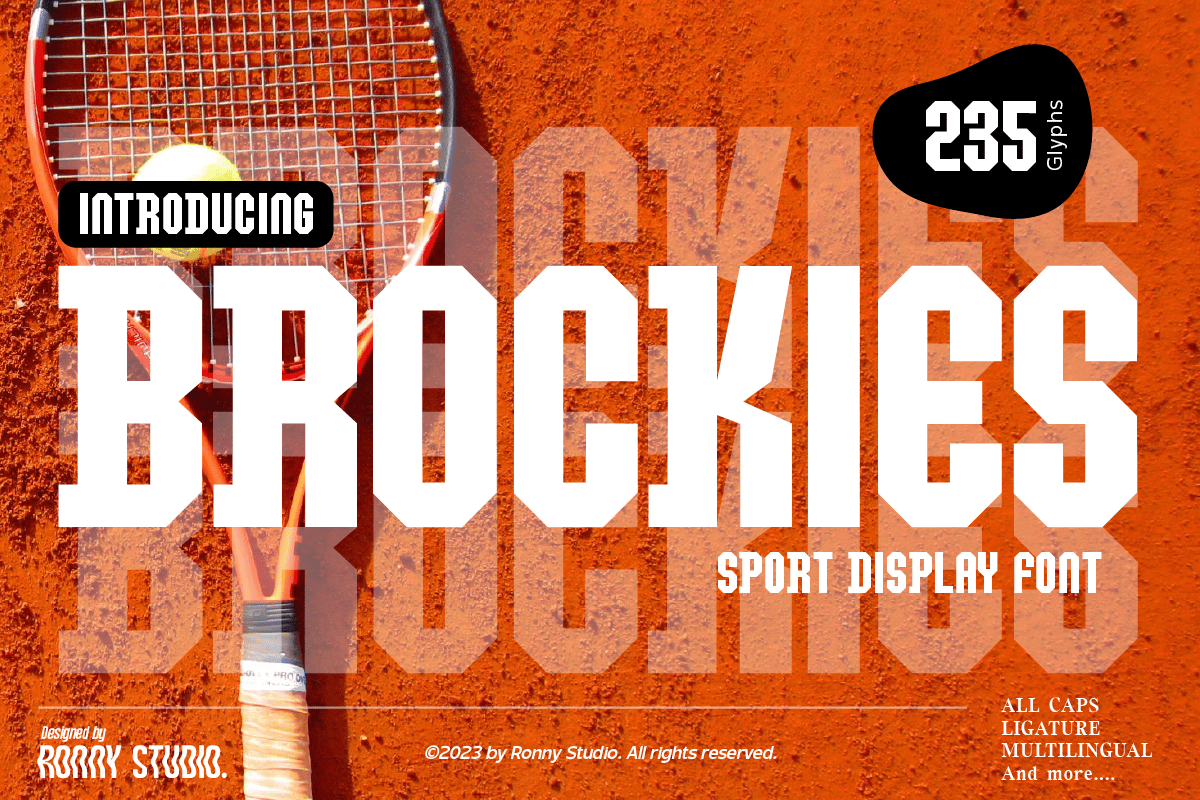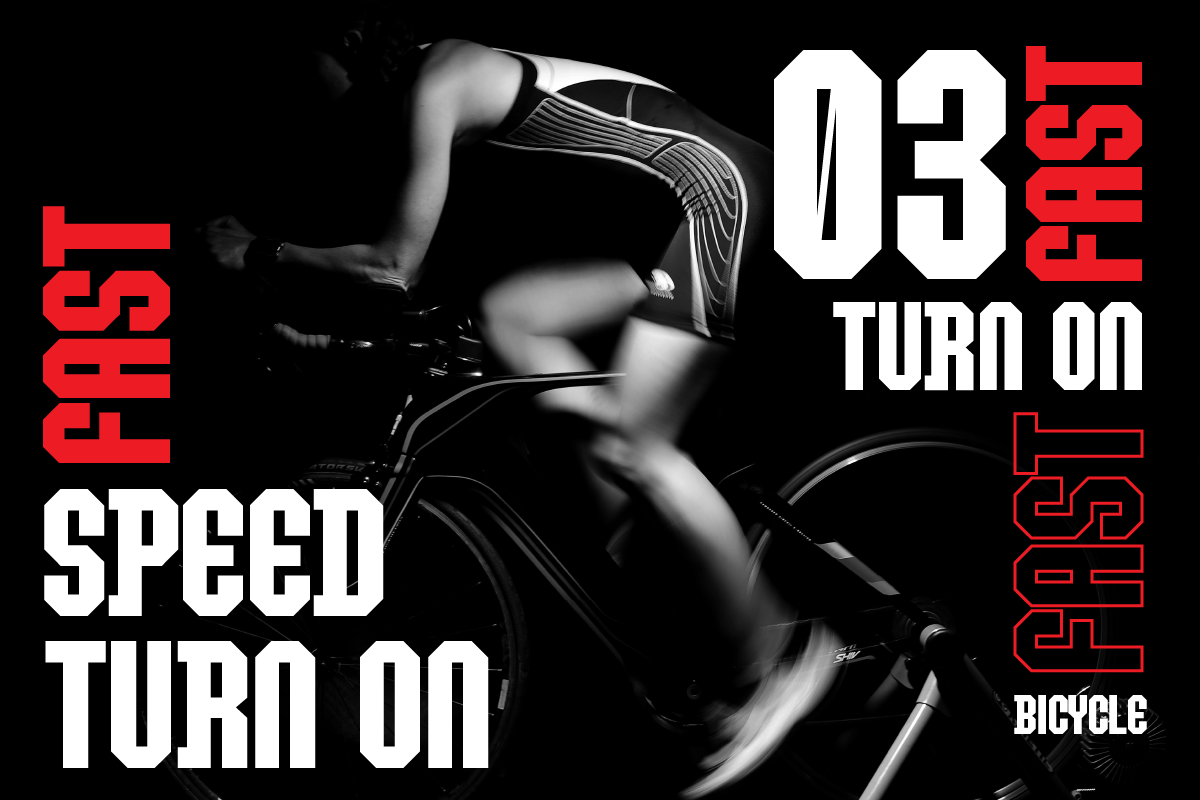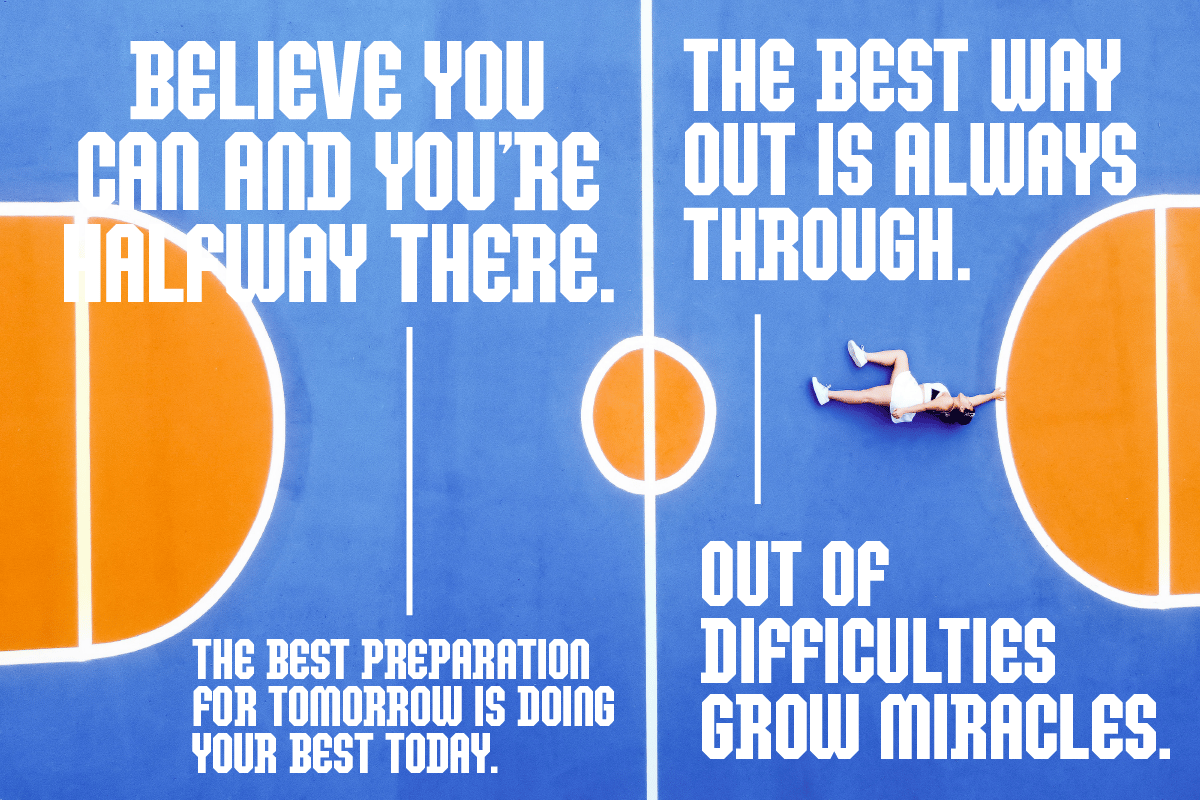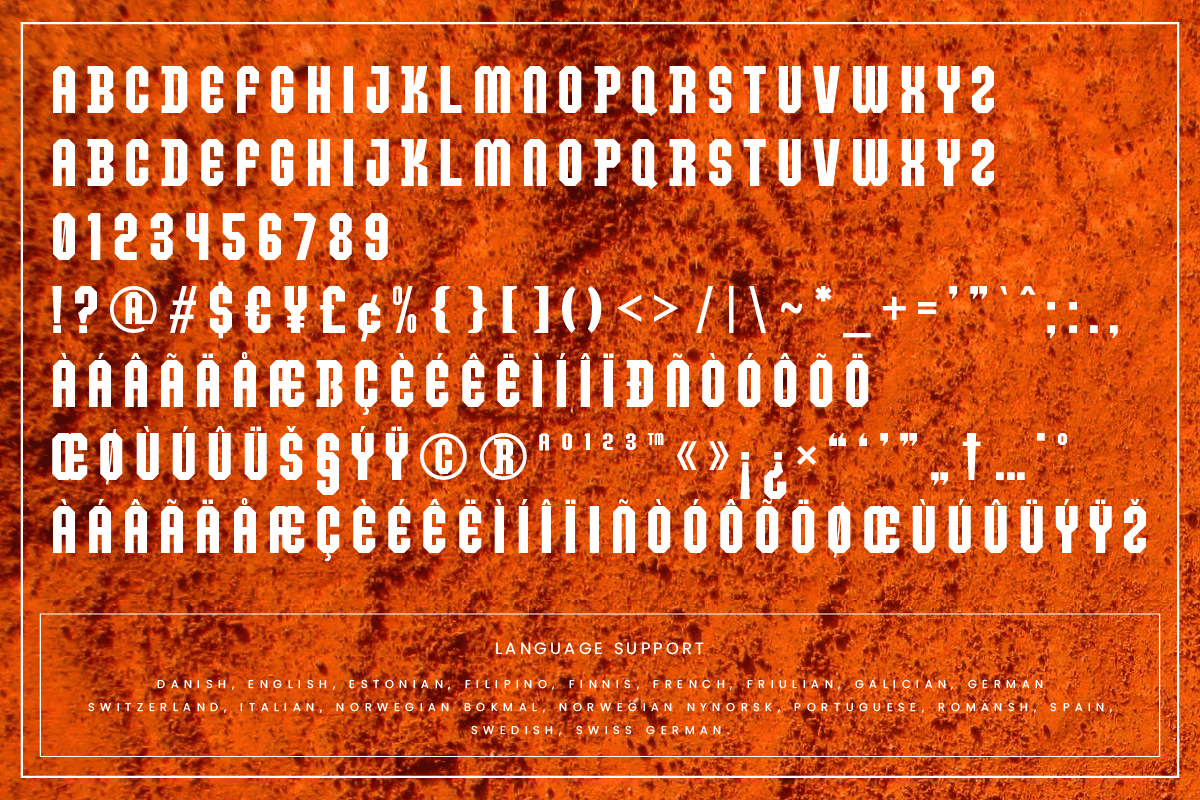
Brockies – Sport Display Font
brockies is a sporty, strong, and elegant typeface, with a college style. Inspired by design styles that are currently popular, and this is the answer to every need for ideas that you will pour in this modern era, with a thick and sturdy style in each letter as if this font has a soul in it.
- Lowercase & Uppercase ( All Caps )
- numbers and punctuation
- multilingual
- alternates